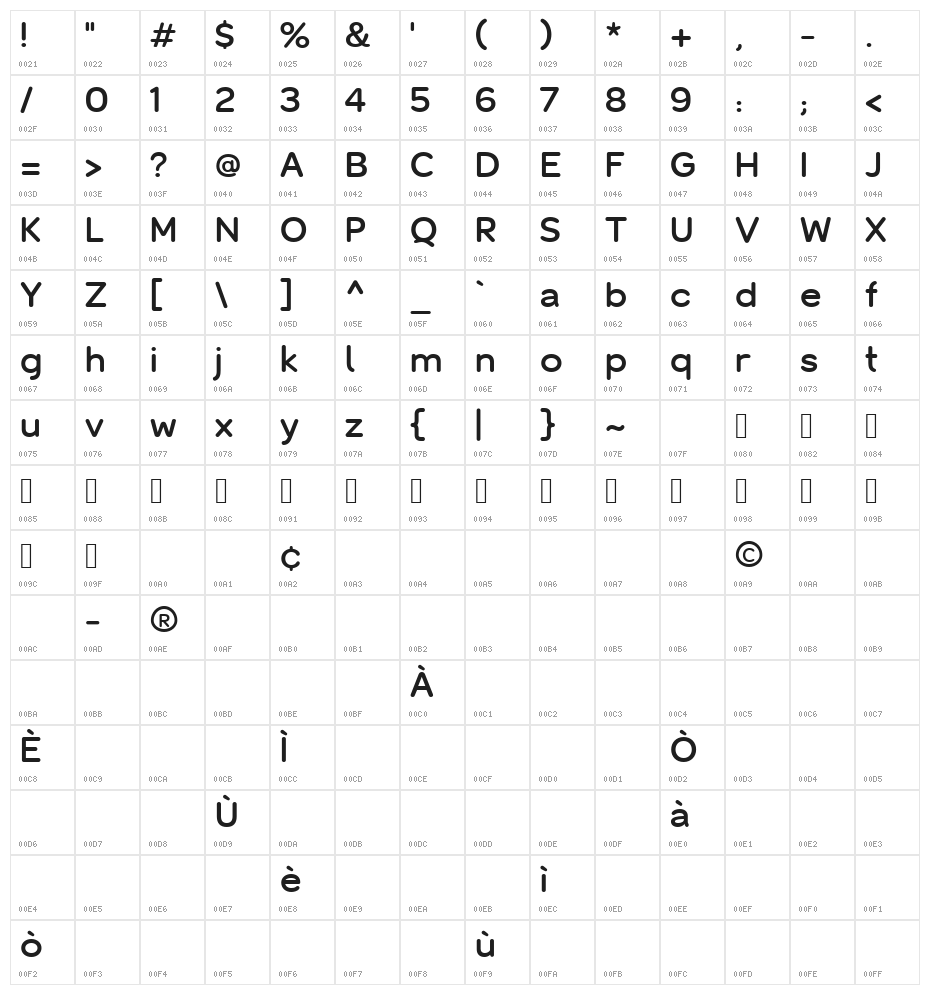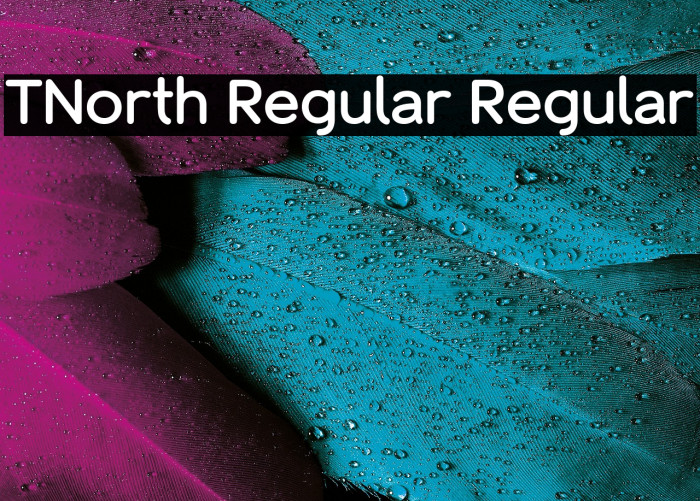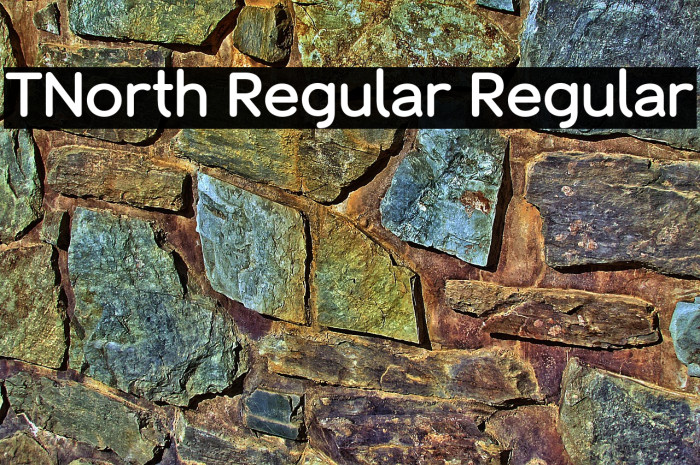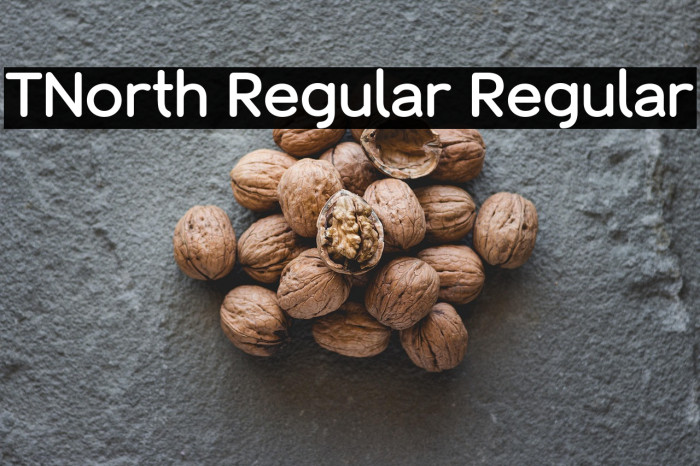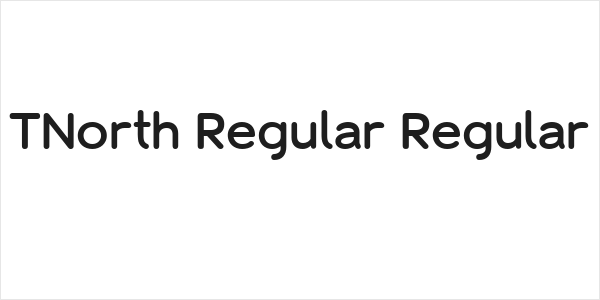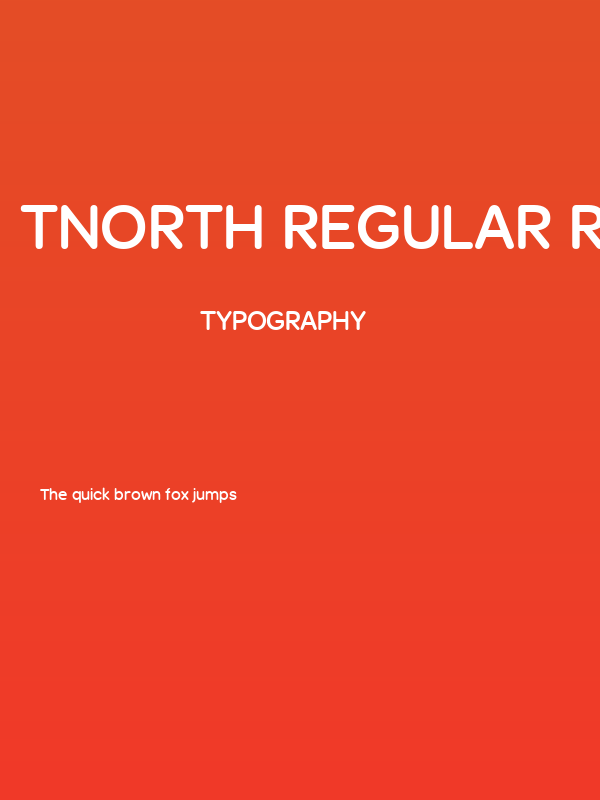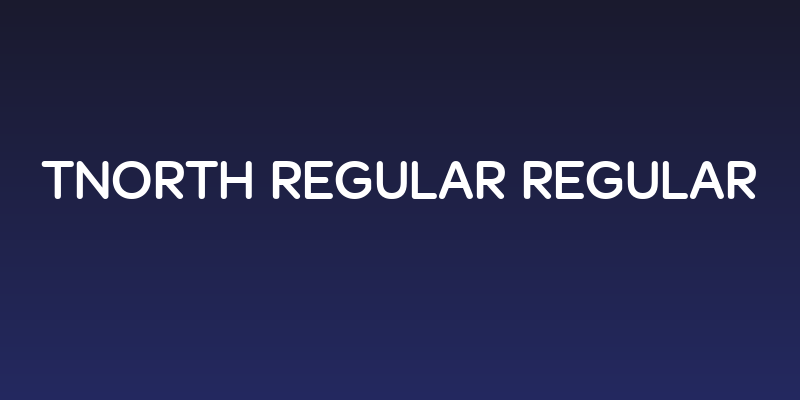
TNorth Regular Font
TNorth Regular Description
This font features a clean and modern design with a sans-serif style. The characters are well-defined with a uniform stroke width, providing a balanced and professional appearance. The uppercase letters are bold and commanding, while the lowercase letters maintain a consistent and harmonious flow. Numbers are clear and easily distinguishable, making them suitable for various applications. Special characters are included, adding versatility to the font's usage. The overall design is straightforward yet elegant, making it adaptable for both digital and print media.
True North Round